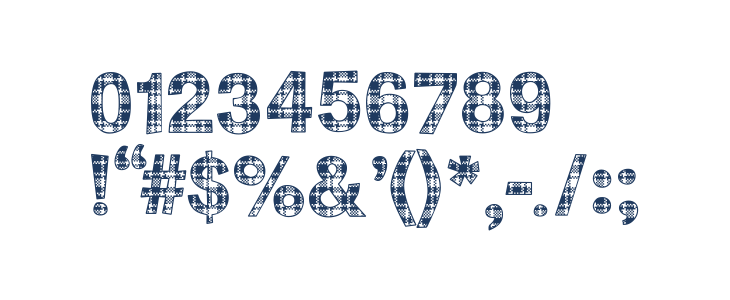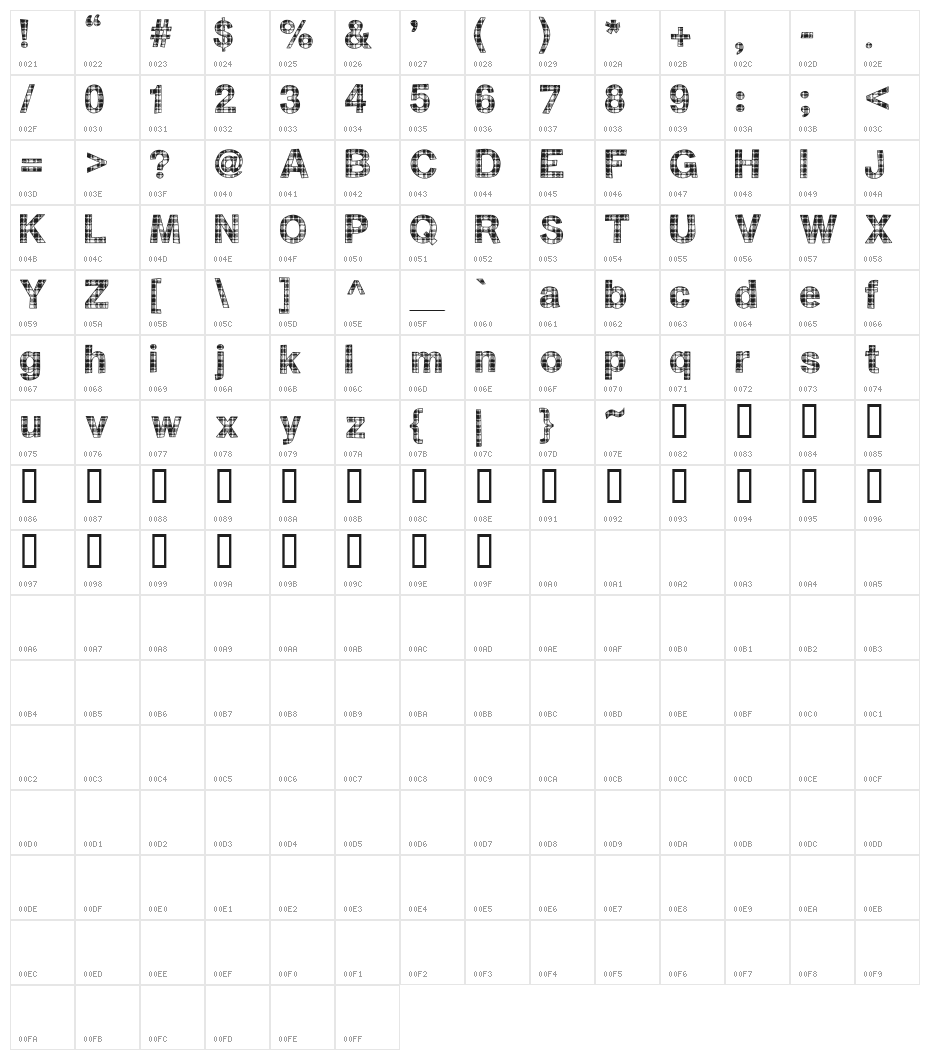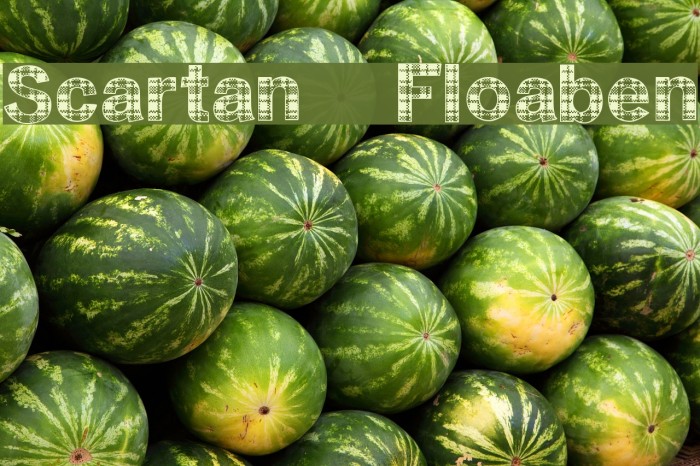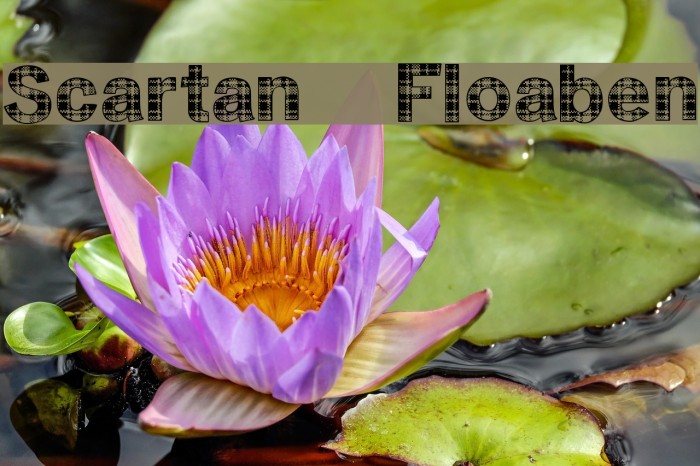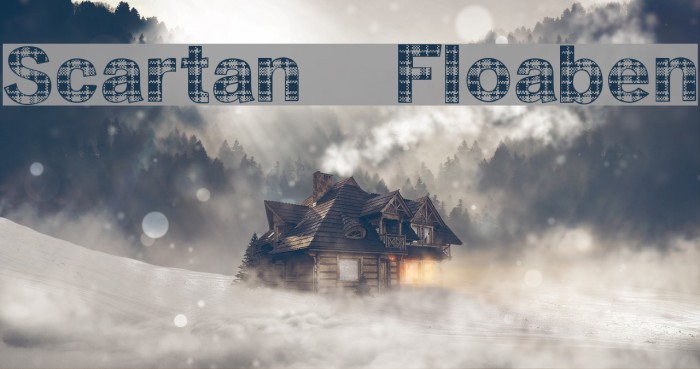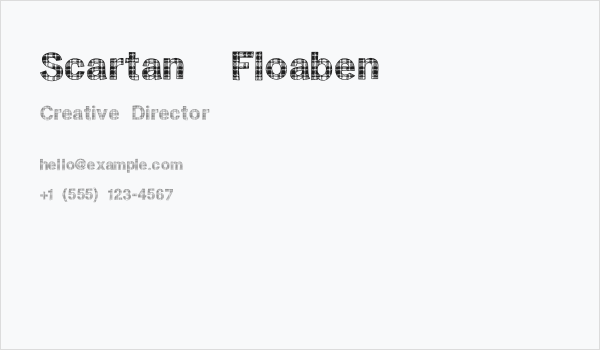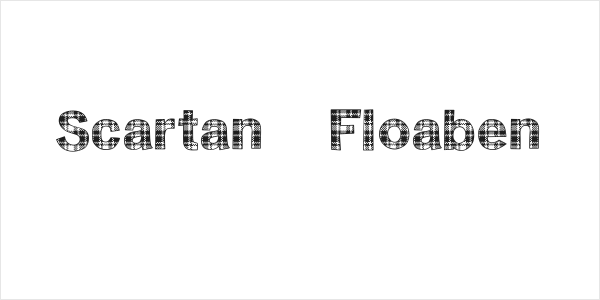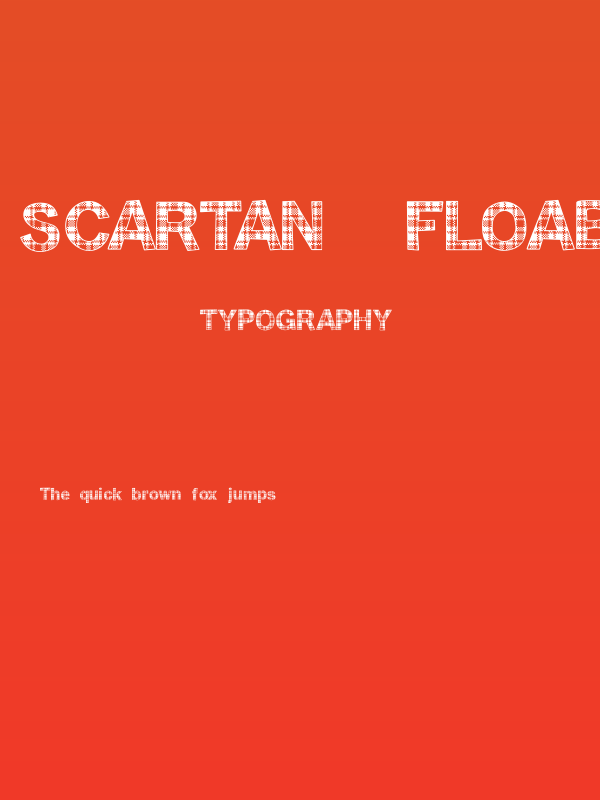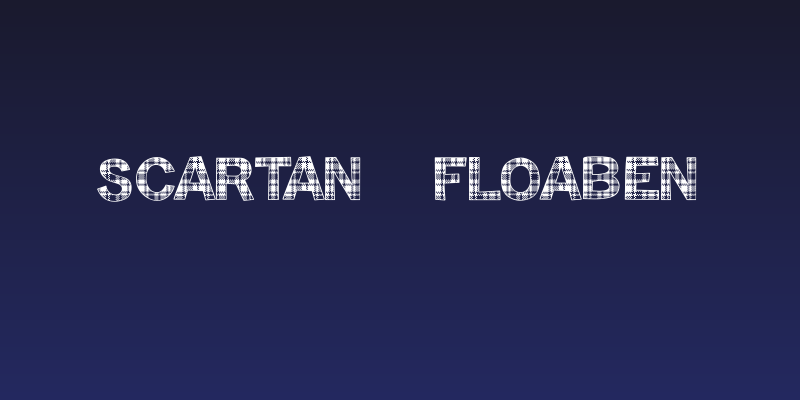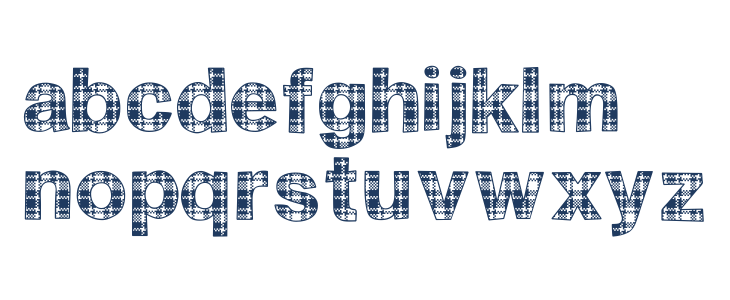
Scartan Floaben Font
Scartan Floaben Description
This font features a bold, decorative style with a unique pattern filling each character. The uppercase and lowercase letters, along with numbers and special characters, are designed with a consistent checkered pattern that adds a playful and eye-catching element. The characters are well-defined with a strong presence, making them suitable for attention-grabbing designs. The font maintains a uniform width across all characters, ensuring a balanced and cohesive look. Its distinct style makes it ideal for creative projects where a standout typeface is needed.
| Proposed Projects | Ideal for posters, headlines, branding, and any design requiring a bold, decorative touch. |